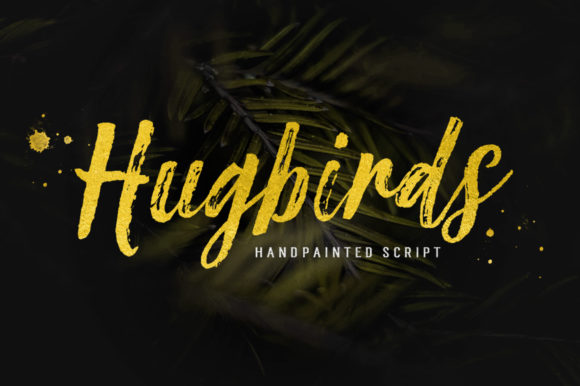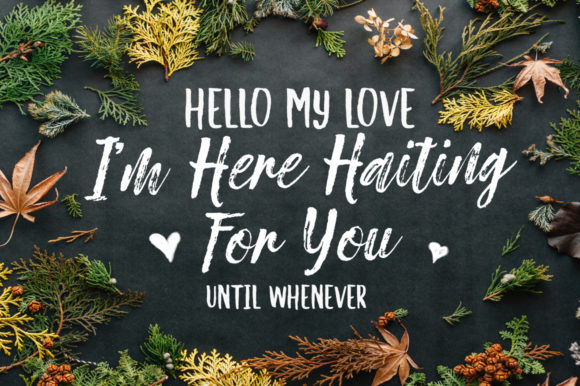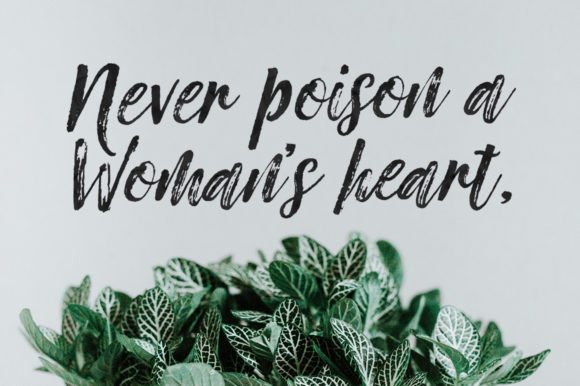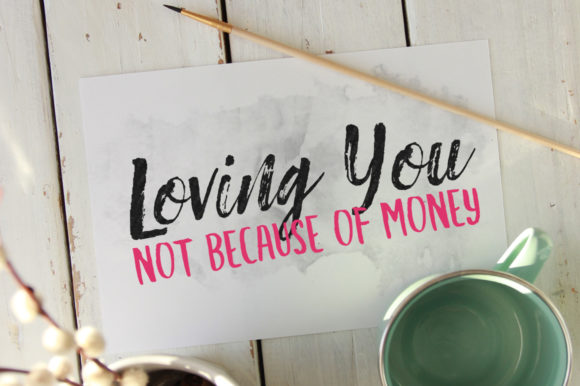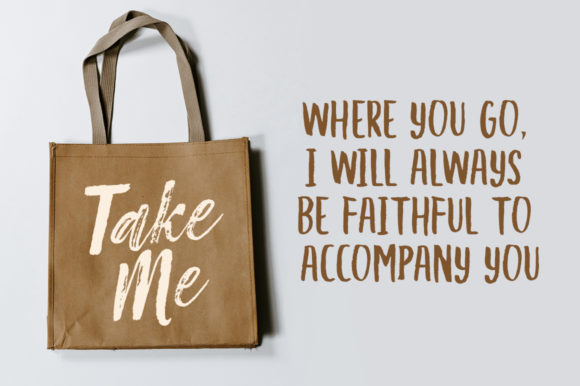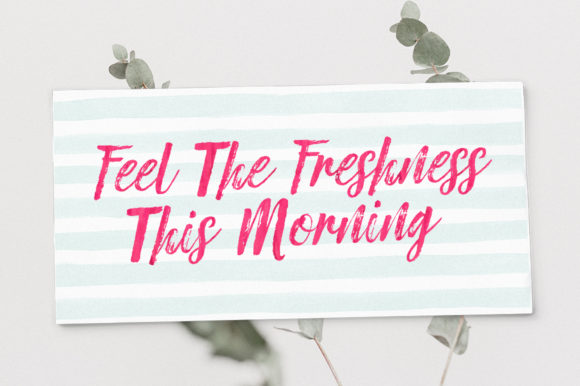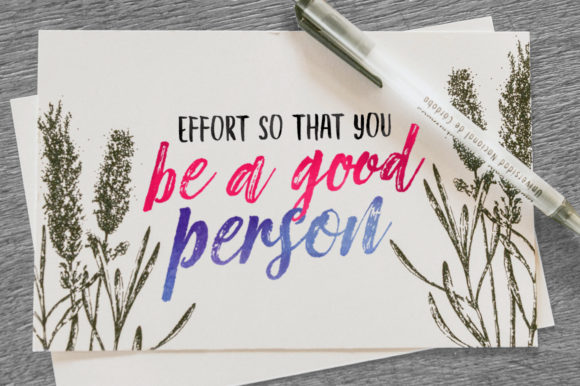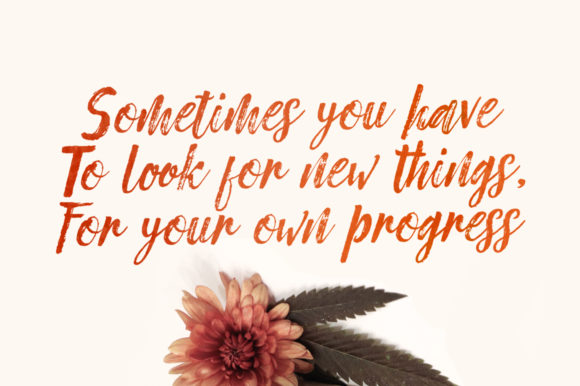
HomeScript FontsHugbirds Font Script Fonts Hugbirds Font FacebookXPinterestWhatsApp Hugbirds Font Poster 2 Hugbirds Font Poster 3 Hugbirds Font Poster 4 Hugbirds Font Poster 5 Hugbirds Font Poster 6 Hugbirds Font Poster 7 Hugbirds Font Poster 8 About Hugbirds Font Hugbirds is a classic handwritten brush font that will add an artistic and authentic vibe to any design project! DOWNLOAD ON CREATIVE FABRICAThis font is sold and delivered by Creative Fabrica. Font Canyon may earn a commission if you buy through this link. People also explored Arnold Story Font Honeydrop Family Memories Font Tequileria Rethaster Font Sophistik Sans Font Meringue Simple Man Font Love Style Font 356 0 TagsHugbirds Font Previous articleDead Inside FontNext articleBafaco Font LEAVE A REPLY Cancel reply Comment: Please enter your comment! Name:* Please enter your name here Email:* You have entered an incorrect email address! Please enter your email address here Website: Save my name, email, and website in this browser for the next time I comment. Personal Use Free Zojihun Personal Use Free Read more about this font Arabella Script Personal Use Free Read more about this font Entin Personal Use Free Read more about this font Milda Personal Use Free Read more about this font BLOG How to Install and Use Fonts on Windows, macOS, and Web Projects How to Install and Use Fonts on Windows, macOS, and Web Projects Fonts are a crucial part of design and branding. Whether you’re designing a... Best Fonts for YouTube Videos: Make Your Thumbnails Stand Out The 10 Best Handwriting Fonts to Add Personality to Your Designs 5 Fonts That Will Dominate Design Trends in 2026